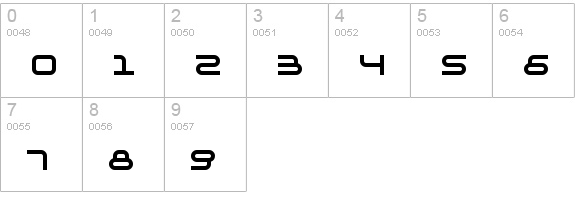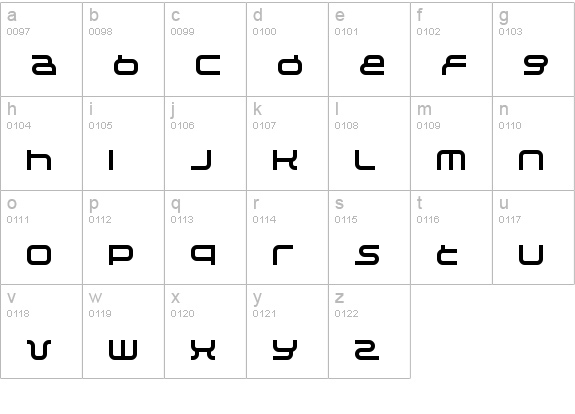
Negative 12 Font Details
Negative 12 font is a sleek and modern typeface that exudes a sense of sophistication and elegance. With its clean lines and sharp edges, this font is perfect for adding a touch of contemporary flair to your designs. The Negative 12 font is versatile and can be used for a wide range of projects, from branding to editorial design. What sets Negative 12 font apart is its unique blend of classic elegance and modern minimalism. The letters are beautifully crafted, with just the right amount of negative space to create a harmonious balance. Whether you're designing a logo, creating a poster, or crafting a website, Negative 12 font will make your text stand out and leave a lasting impression. And the best part? Negative 12 font is freely available to download at FontsMarket.com. So go ahead and elevate your designs with this stylish and sophisticated typeface today.